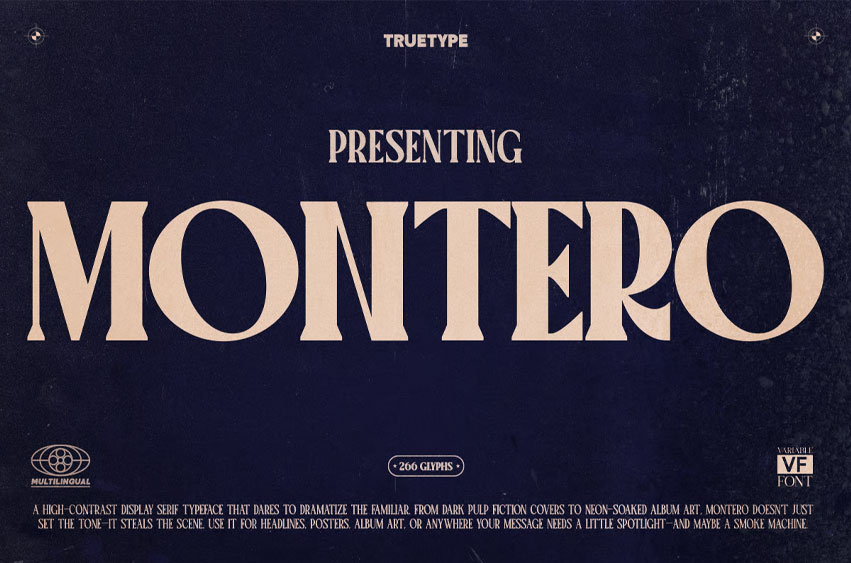
Montero Serif Font is a condensed serif typeface that combines timeless elegance with a sleek, modern structure. Its narrow proportions and graceful serif details make it ideal for designers seeking both space efficiency and refined sophistication. Designed with a focus on balance and clarity, TBJ Montero supports small caps and OpenType features, offering flexibility across a wide range of editorial and branding projects.
With its tall letterforms, sharp serifs, and elegant contrast, TBJ Montero is perfect for use in headlines, fashion campaigns, packaging, and typographic quotes. Its condensed shape allows more content to fit in limited space without compromising readability — making it especially useful for magazine layouts, logo lockups, and digital platforms.
TBJ Montero’s personality lies in its ability to feel both classic and contemporary. It brings structure to your compositions while exuding a poised, stylish charm. Whether you’re crafting wedding invitations, nostalgic branding, or product packaging, TBJ Montero elevates every letter with character and finesse.